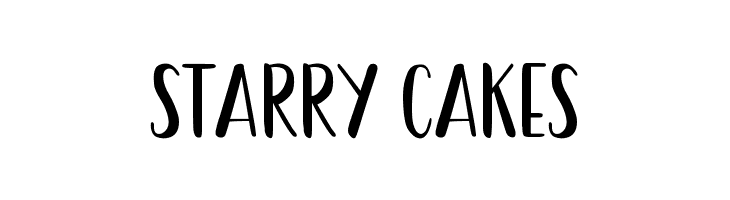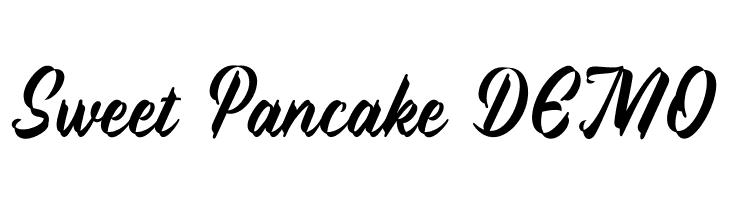
A bold, playful font with rounded edges and thick strokes.
A playful, hand-drawn font with bold, rounded characters and whimsical curves.
A playful, cursive font with a smooth, handwritten style.
A playful, whimsical font with tall, narrow letters and a slight slant.
A bold, dripping font with a spooky, playful aesthetic.
A graceful, cursive script font with elegant, flowing strokes.
A playful, handwritten font with smooth, flowing lines and a modern aesthetic.
A playful, handwritten font with bold strokes and a casual style.
A bold, flowing script font with elegant cursive letterforms.